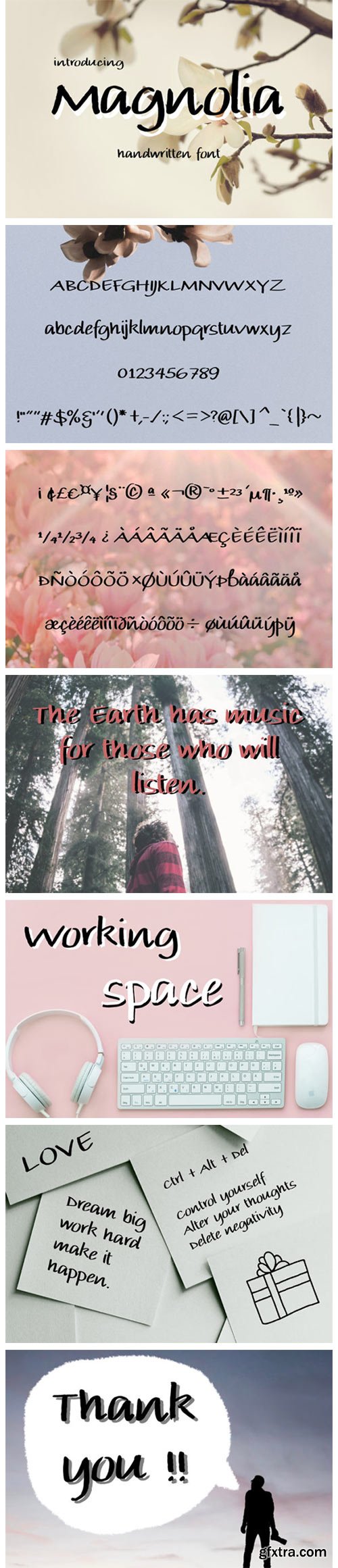
Magnolia Font
Magnolia embodies fun, quirkiness and authenticity. This enchanting handwritten font will turn any creative idea into a true standout. Get creative with its unique playfulness, and use it to brighten up any crafting projects!